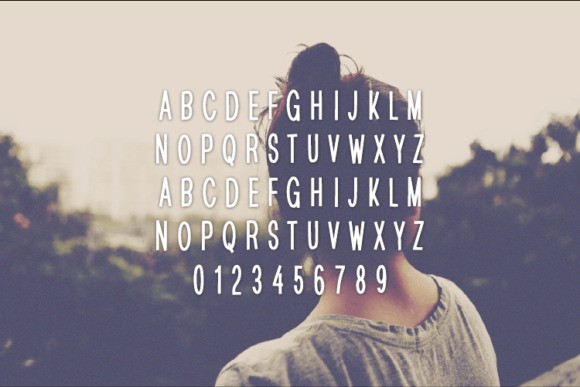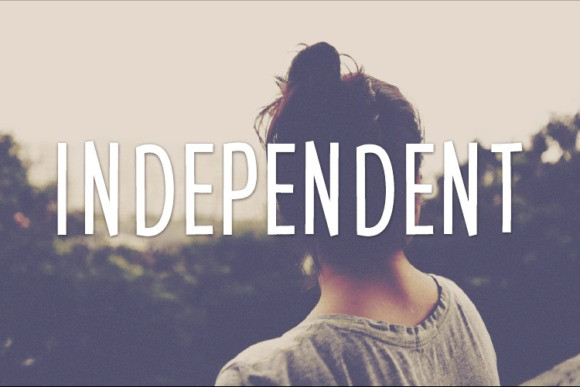
Independent Font
Independent Font is a beautiful sans serif font that will make a wonderful asset to your collection. Add it to your logos, quotes, T-shirts, greeting cards, business cards, and many more, and make them outstanding!